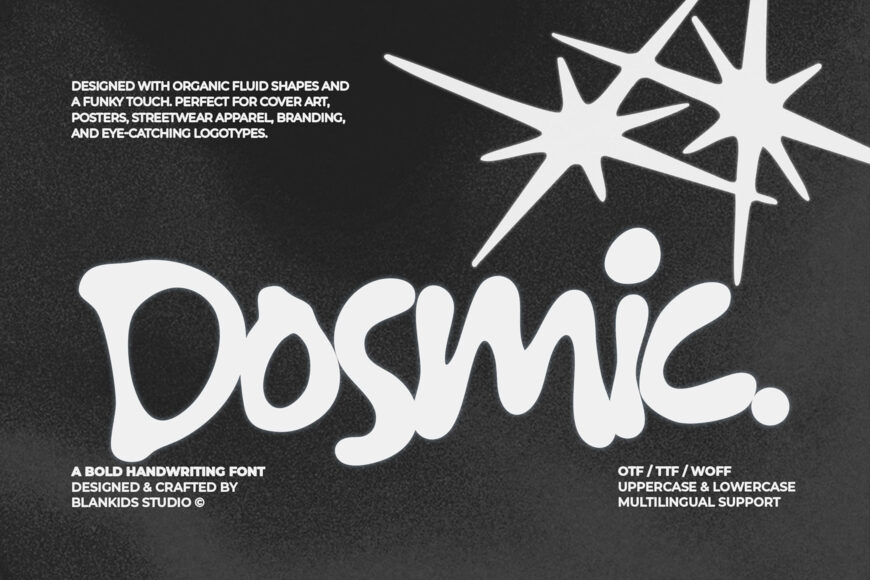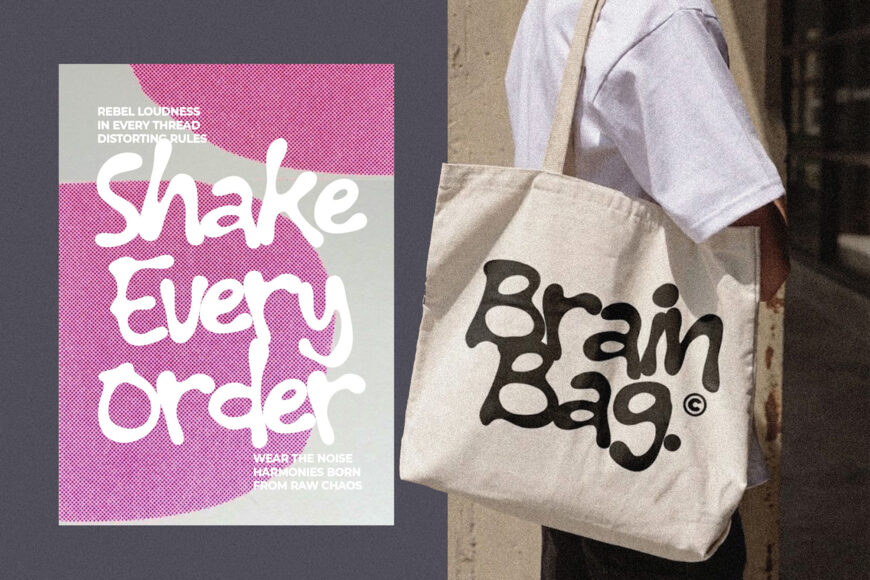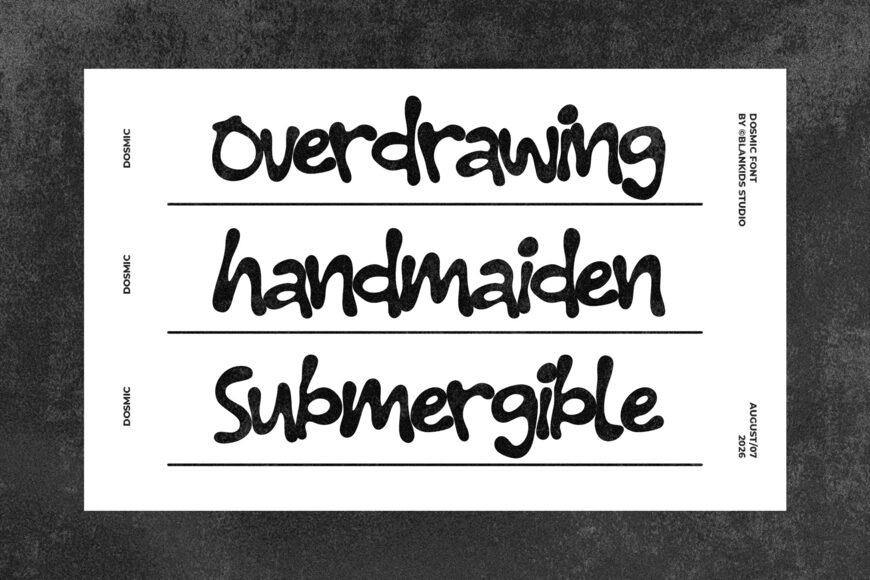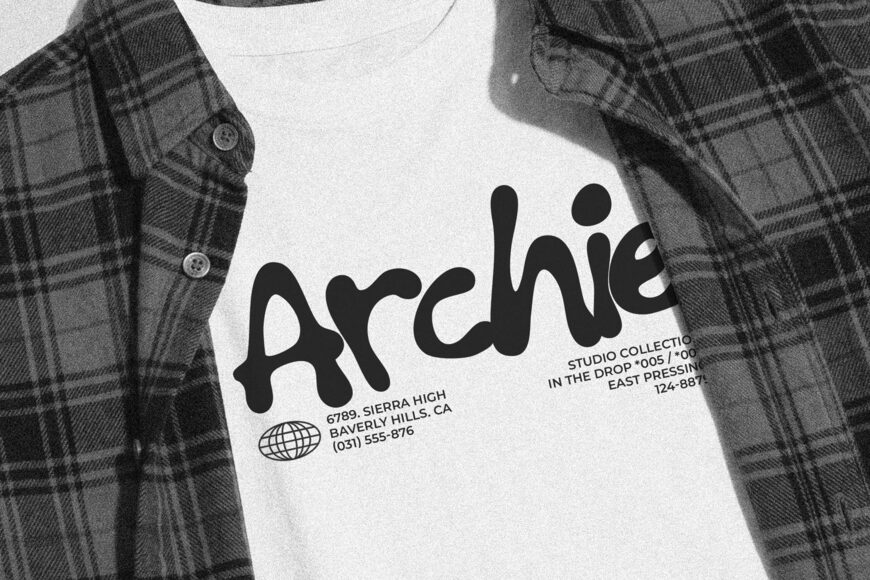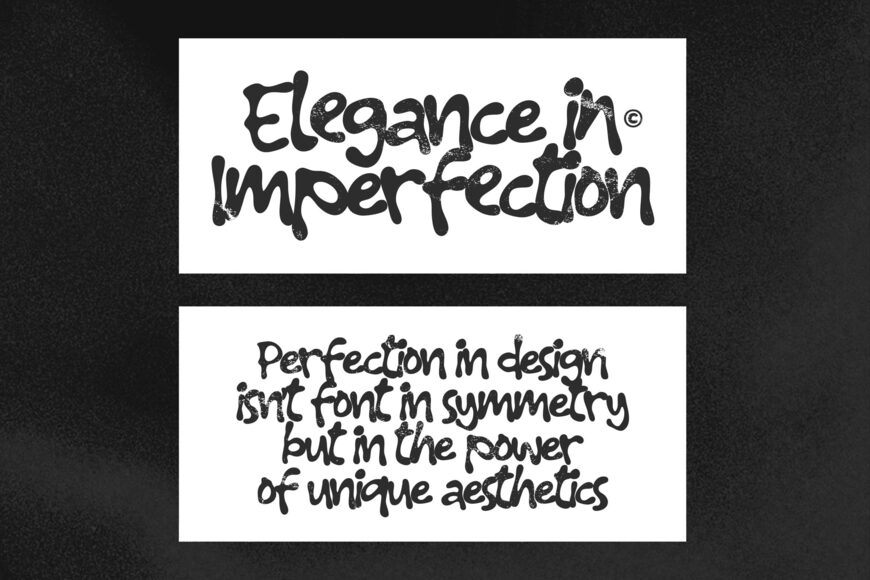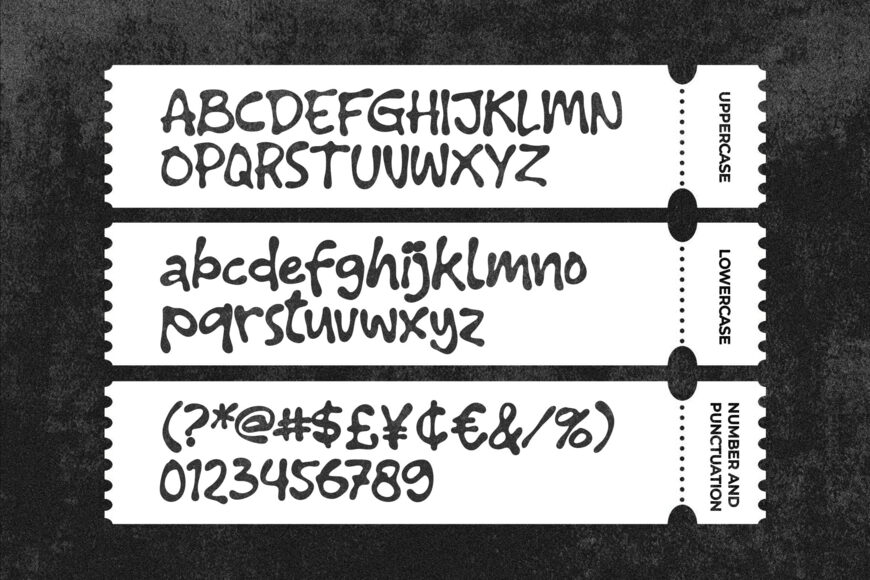
Dosmic Font
Dosmic is a bold, expressive handwriting font designed with organic fluid shapes and a vibrant funky touch. Breaking away from rigid symmetry, Dosmic brings raw character, high energy, and an unmistakable aesthetic attitude to your creative projects.
Crafted with a naturally distorted fluid rhythm, this font is built to stand out on album covers, streetwear merch, Y2K-inspired branding, posters, and bold logotypes. Whether you are designing for modern streetwear brands, music festivals, or eye-catching social media graphics, Dosmic delivers maximum visual punch.